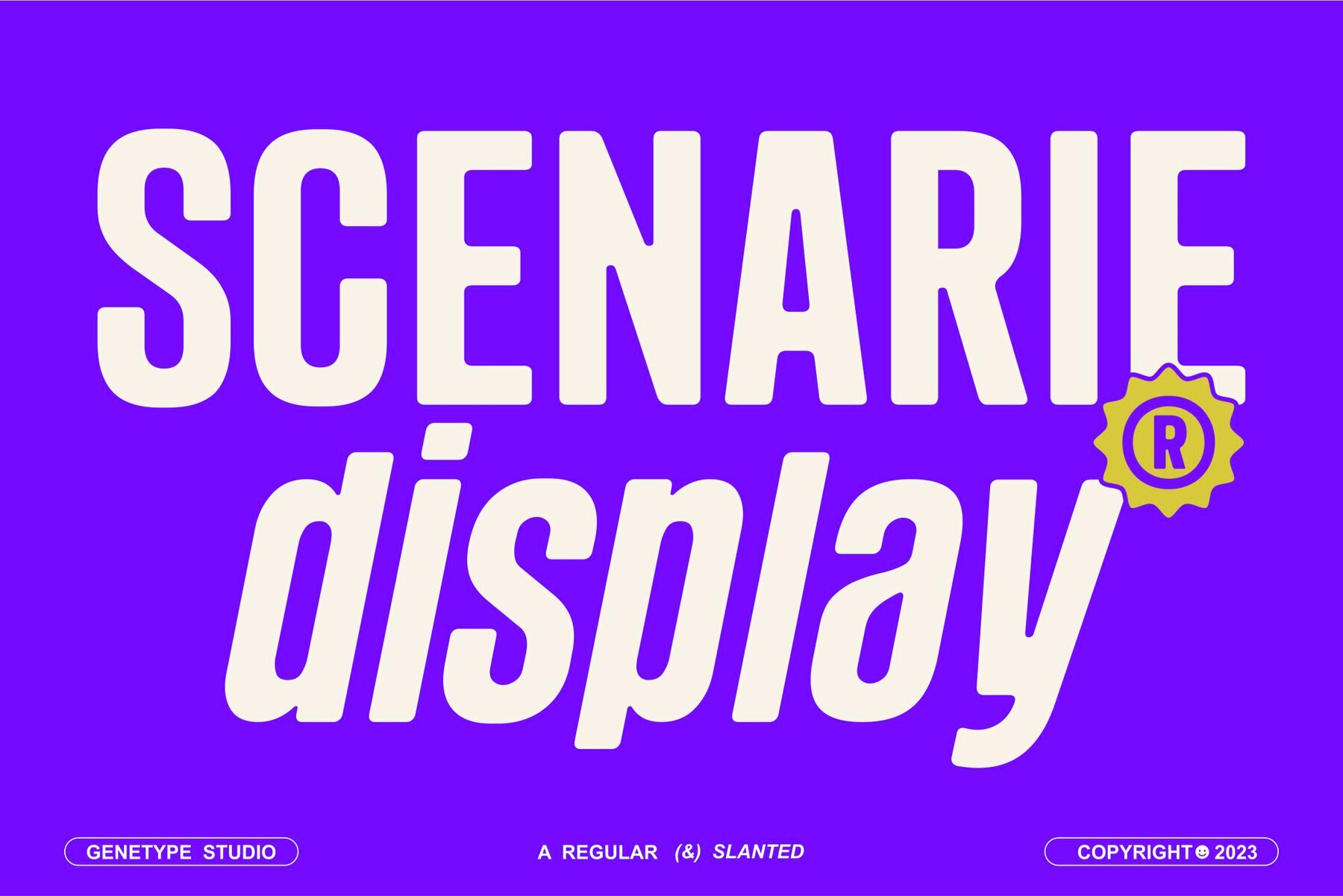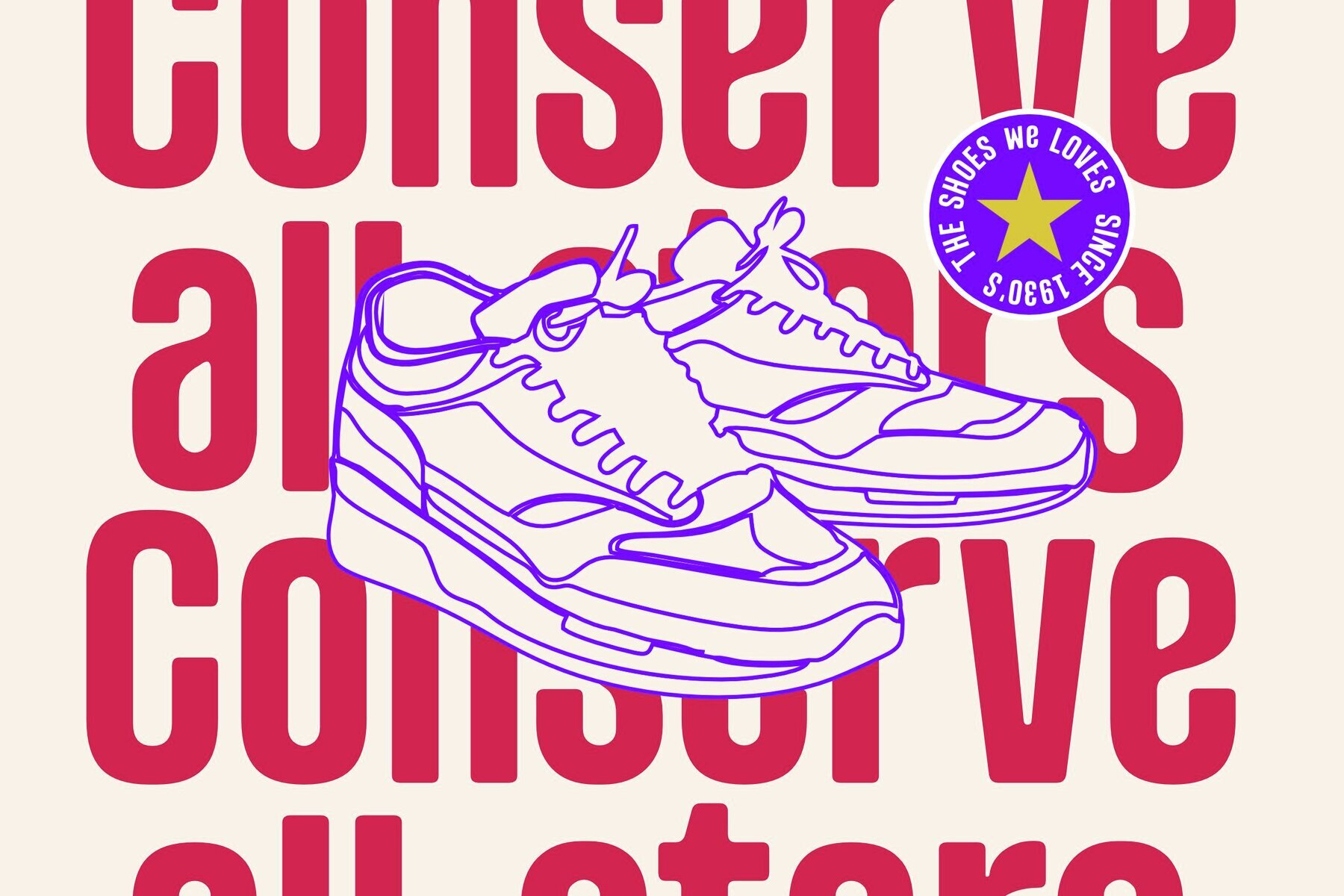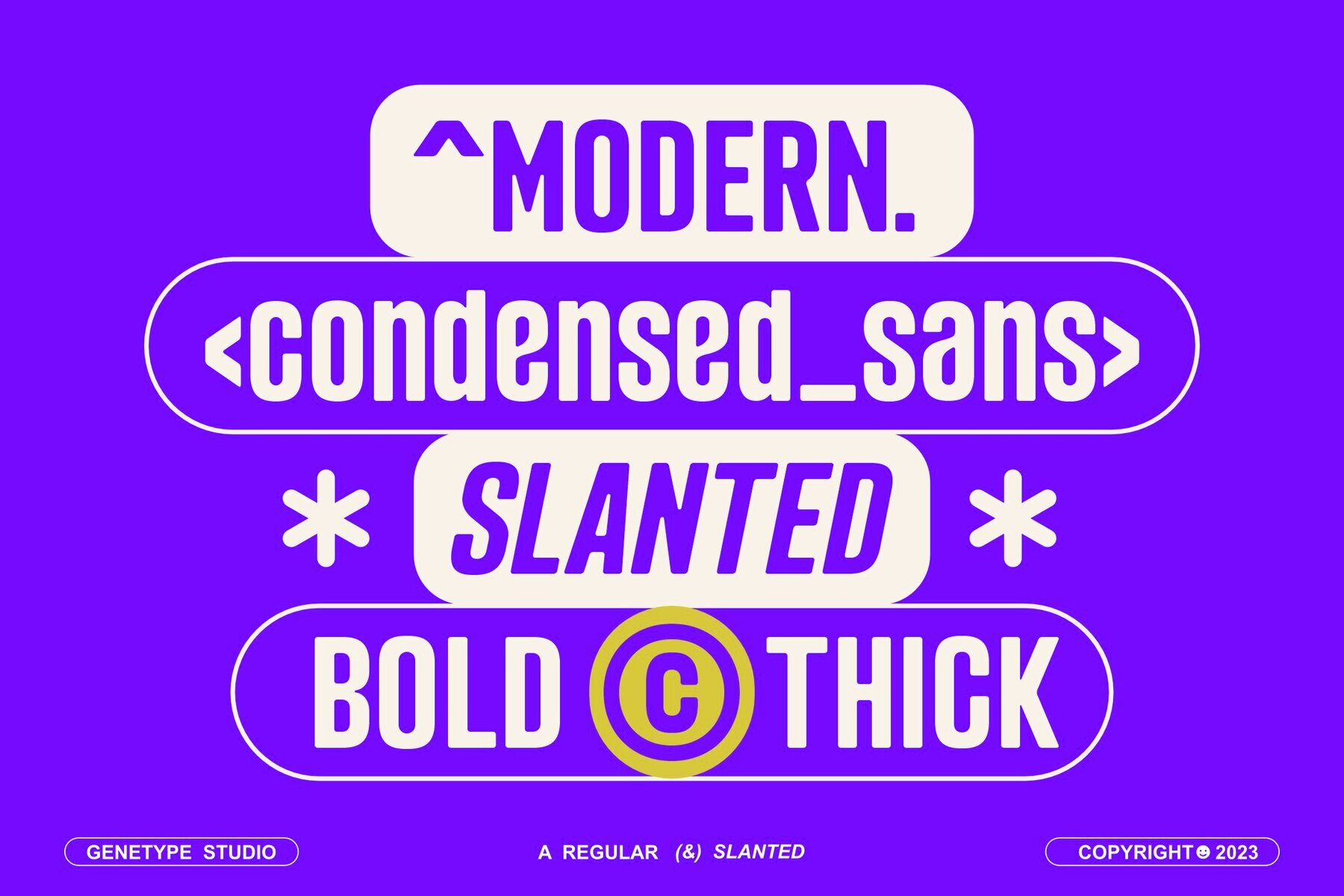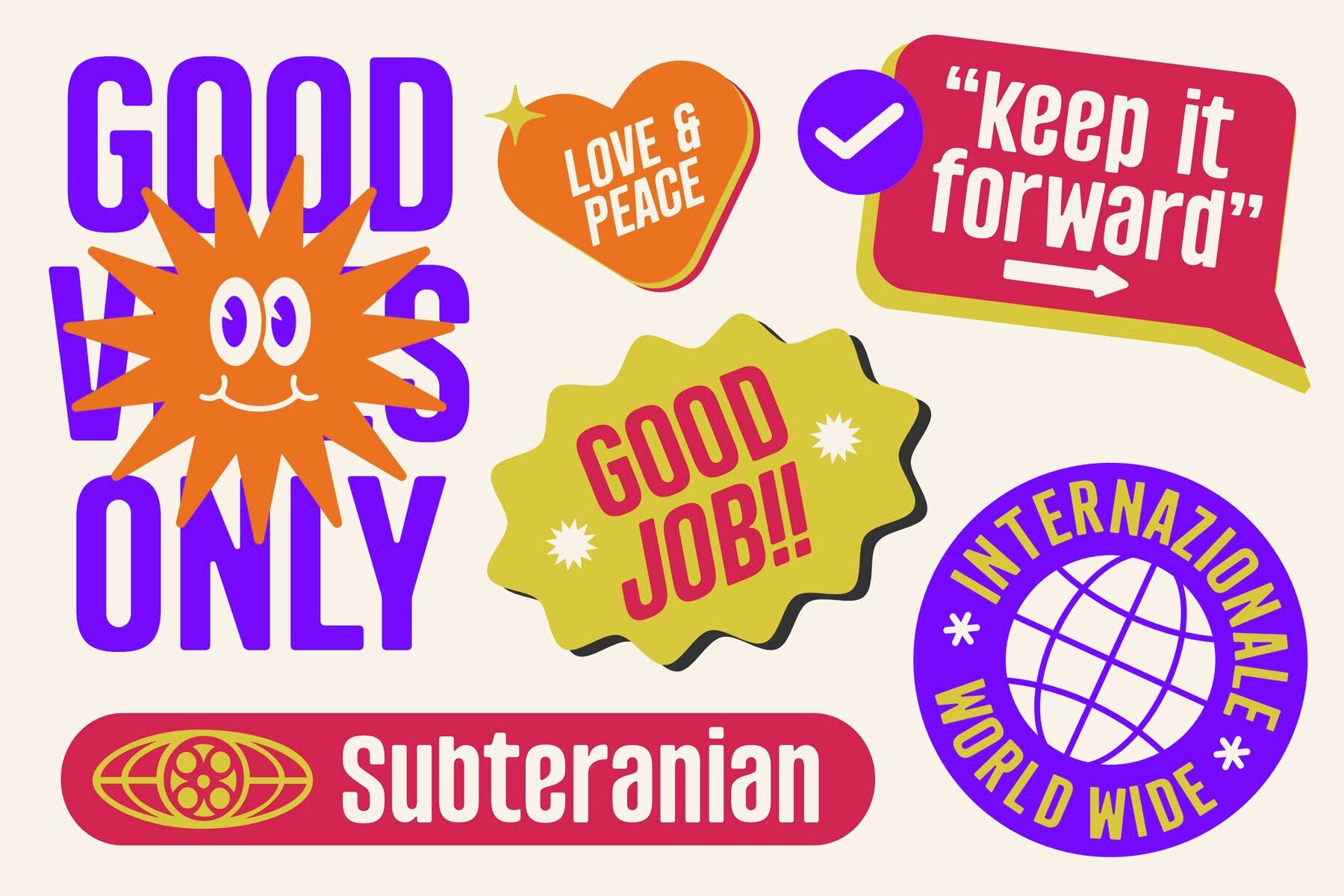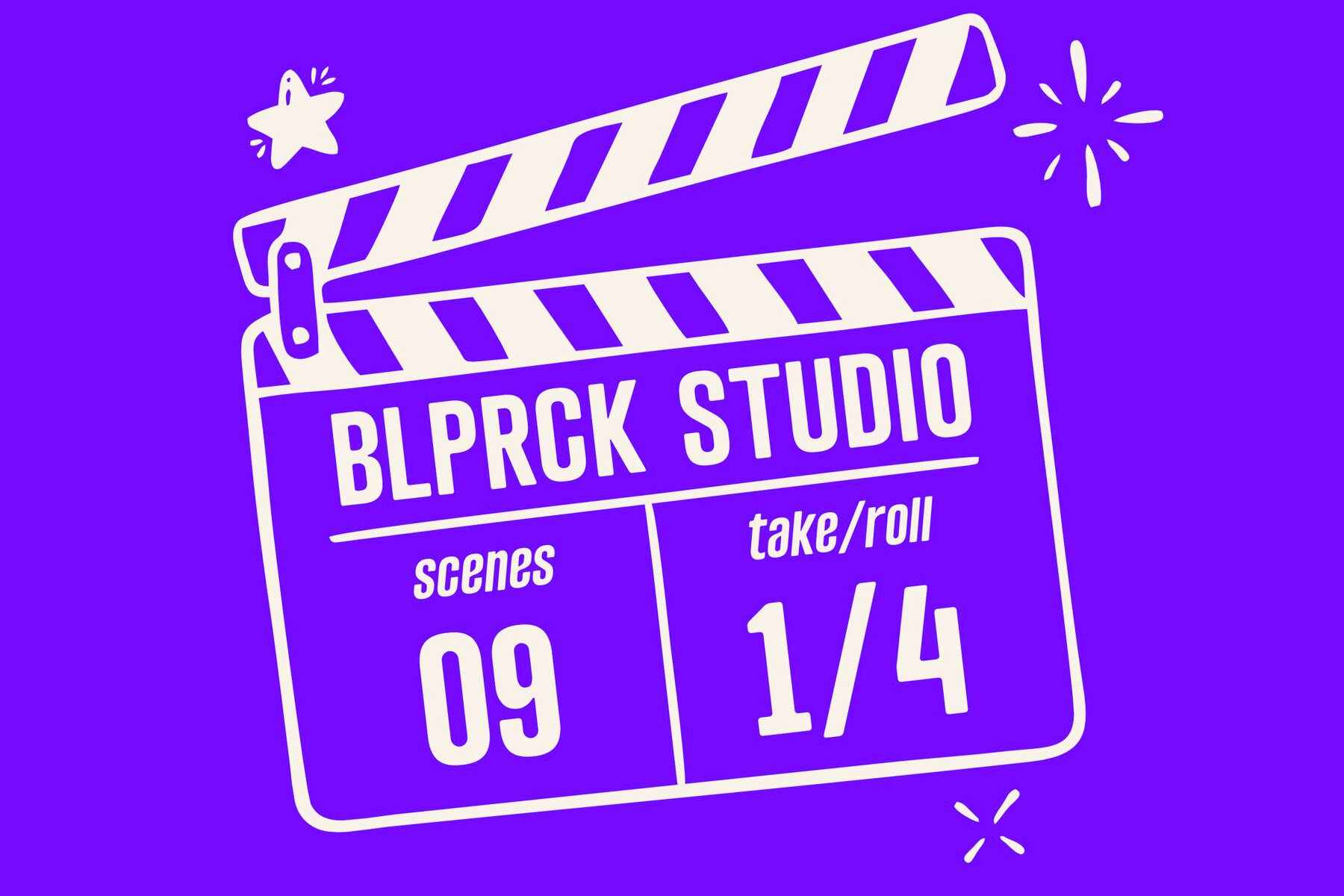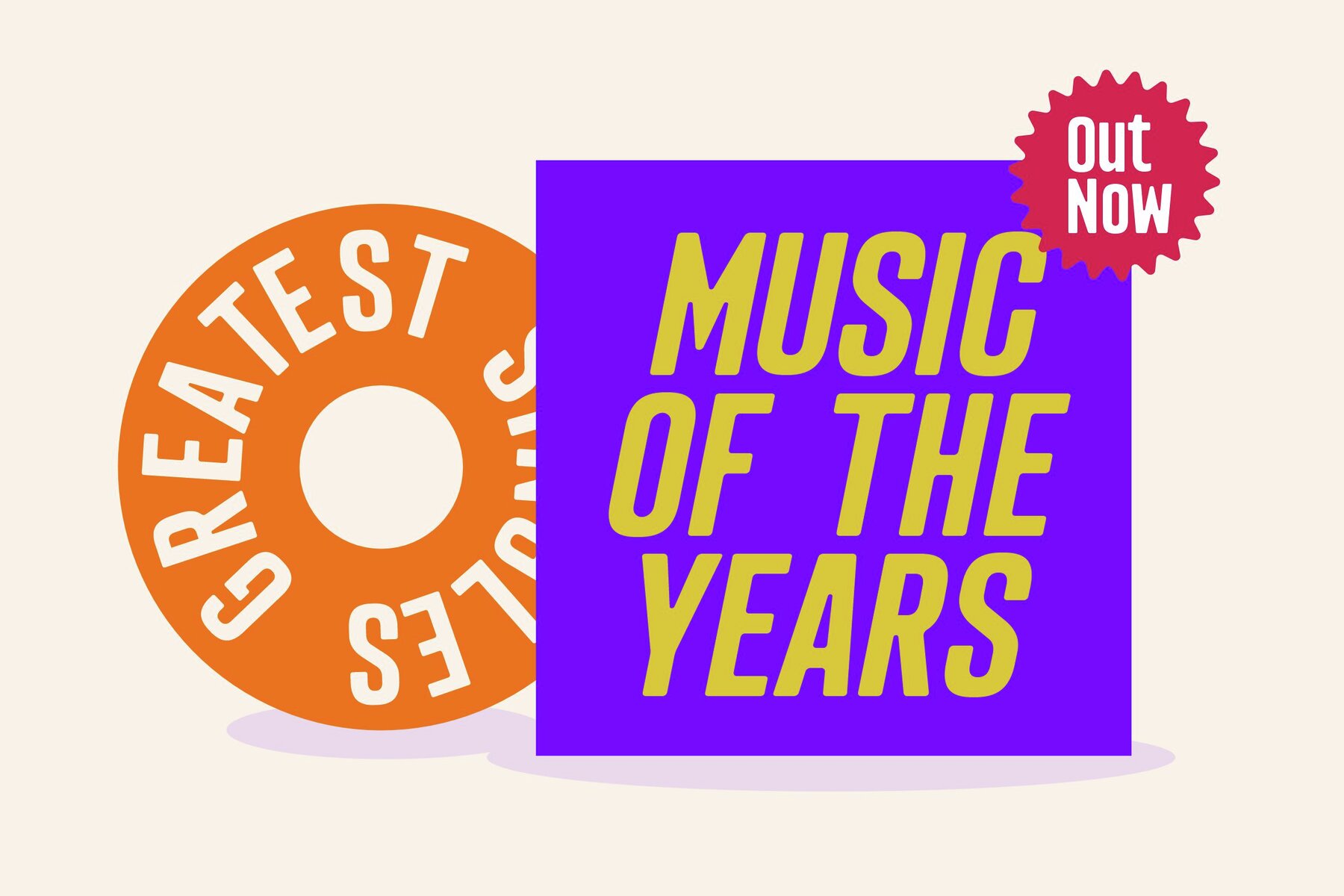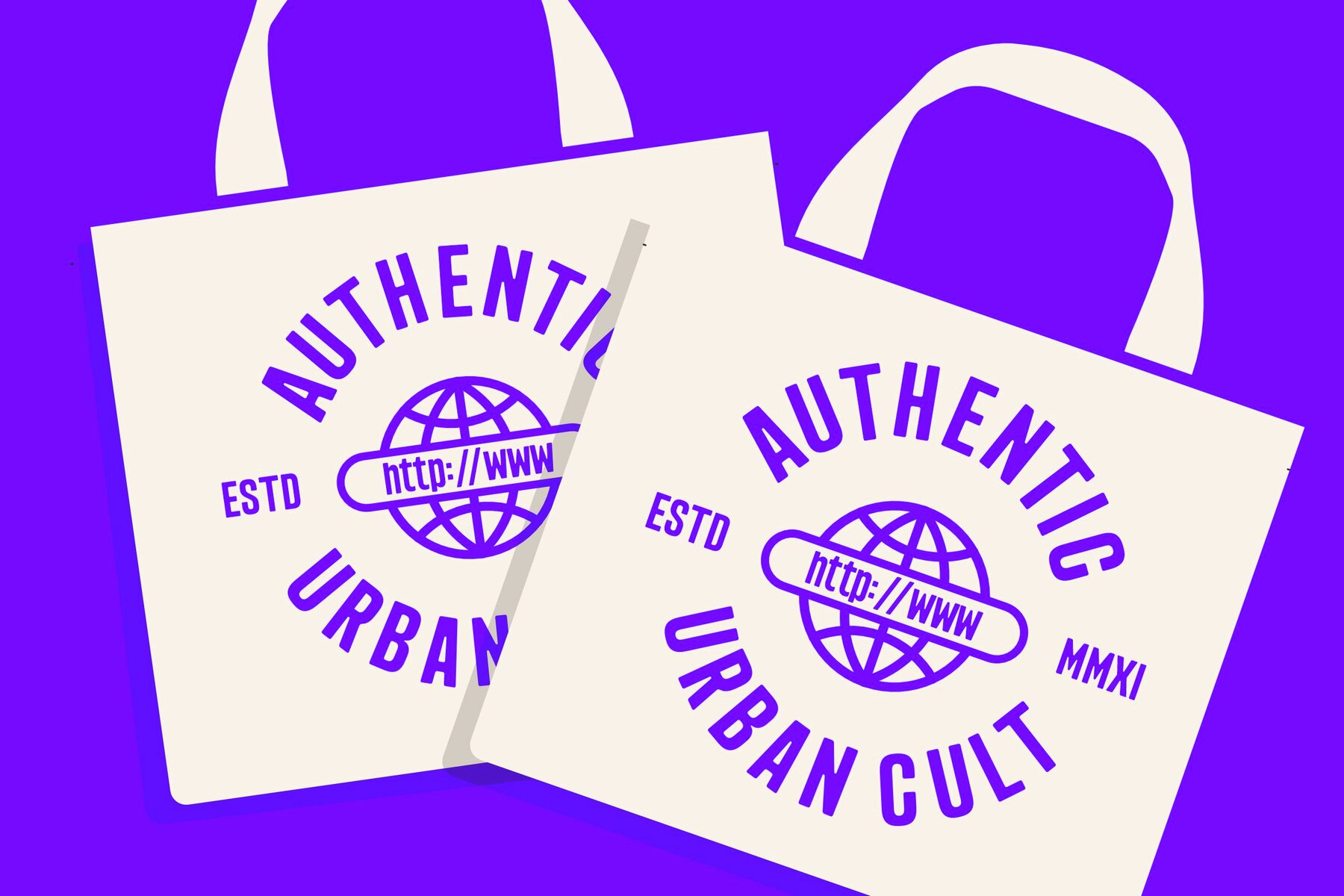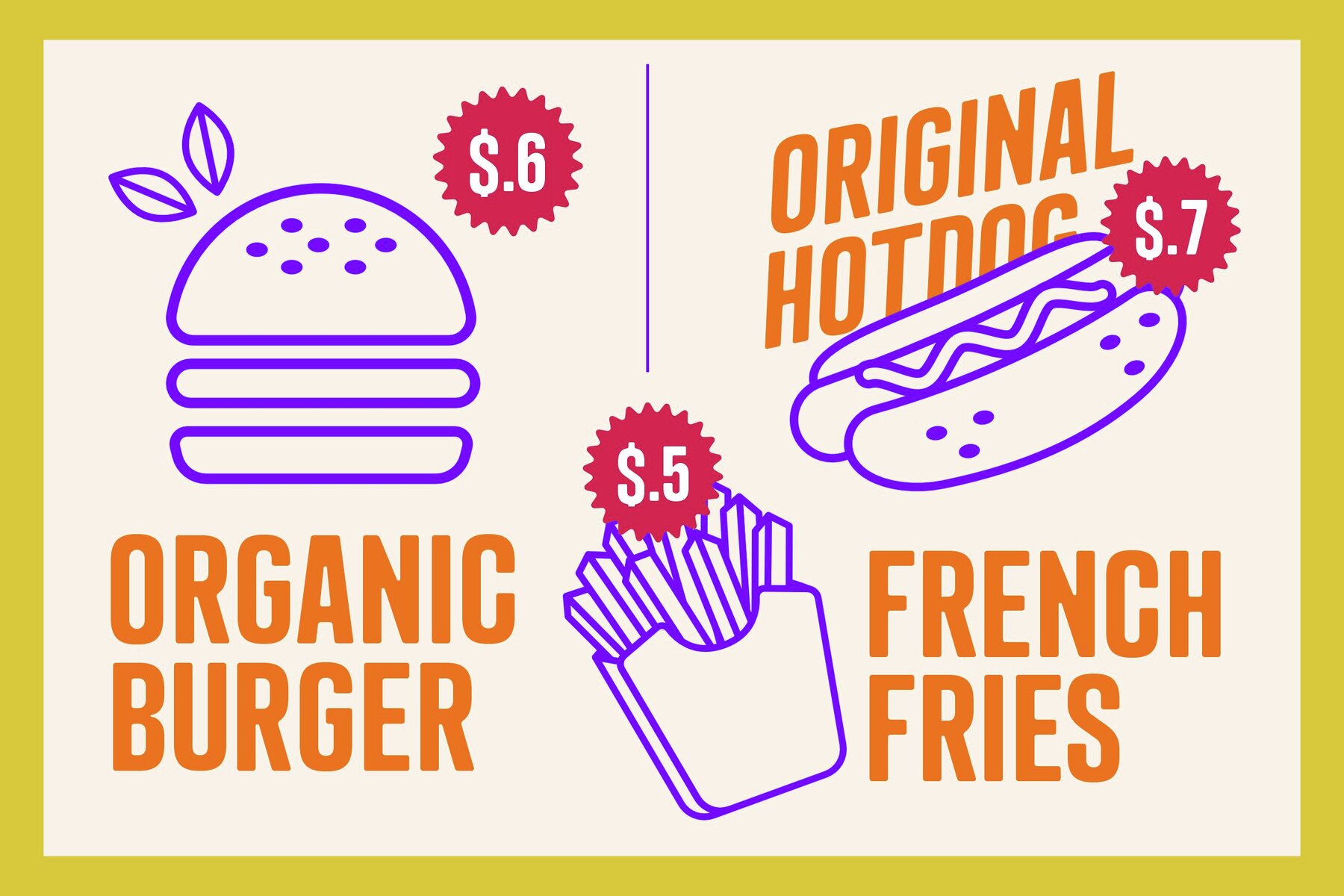
Scenarie Font
Scenarie Regular
Scenarie Slanted
Introducing the art of sophistication with Scenarie Display, a condensed sans serif font meticulously crafted for streamlined design. Ideal for sleek logos and space-efficient layouts, this typeface offers a modern and refined touch without compromising on elegance.
Scenarie Display enhances your projects with its clean lines and sophisticated design, making it perfect for a variety of applications from branding to editorial work. Embrace the power of condensed typography and discover new design possibilities with Scenarie Display.